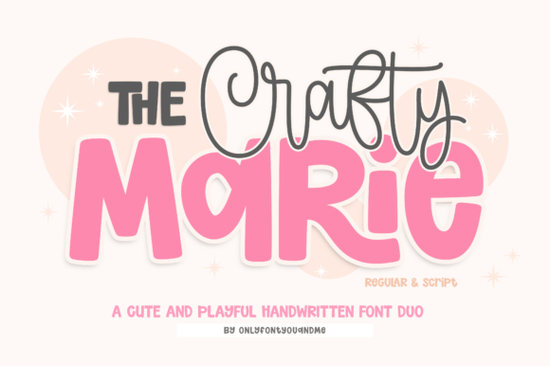
If you've ever spent too long trying to find two fonts that actually look good together, The Crafty Marie Font solves that problem immediately. It's a font duo that pairs a bold, rounded display sans with a smooth, whimsical handwritten script both built with the same playful energy so they work together without any guesswork.
Whether you're making classroom worksheets, birthday invitations, or nursery wall art, this duo gives you a cohesive, polished look from the start.
What Makes This Font Pairing Work So Well Together?
Most font bundles give you random styles that may or may not complement each other. The Crafty Marie Font is different because both styles share the same design DNA. That means:
- The Regular style handles headlines, titles, and primary messages
- The Script style works beautifully for accents, taglines, and personal touches
Does It Work Well With Cricut and SVG Software?
Yes and this is where it really shines for crafters. The clean, well-defined outlines make it a solid choice for:
- Cricut cutting projects no jagged edges or confusing paths
- SVG design work smooth curves that scale cleanly
- Print-on-demand products crisp at both small and large sizes
- DIY stickers and decals especially with a white offset for that popular sticker look
For the best results on cut projects, try using candy-inspired contrasting colors or add a thick white outline around the text. That layered sticker effect is one of the easiest ways to make your designs stand out in a crowded Etsy shop.
What Kinds of Projects Is It Best For?
Because of its friendly, approachable style, this font duo works across a surprisingly wide range of creative work:
- Classroom materials headers, flashcards, bulletin board displays
- Children's branding logos, business cards, social media graphics
- Birthday invitations especially for kids' parties
- Nursery art prints quotes, name art, milestone cards
- Teacher resources worksheets, labels, reward charts
- Small business packaging product tags, thank-you cards, stickers
How Do I Get the Most Out of This Font Duo?
Here are a few practical tips from working with font pairs like this one:
- Set your hierarchy first use Regular for main text, Script for secondary details
- Test your color choices candy palettes and high-contrast combinations tend to work best
- Add a white offset for sticker effects a 2–3px outline makes a noticeable difference
- Run a test cut the outlines are clean, but always verify on your specific material
- Save your favorite layouts build a few reusable templates to speed up future projects
Before You Start Your Next Project
Make sure both styles are installed and showing correctly in your design program. Create a simple test layout with both the Regular and Script styles side by side this helps you see how the hierarchy looks before committing to a full design. If you're building a larger font collection for craft projects, it's worth bookmarking the full product page so you can come back to it easily.
With its ready-made pairing, clean cut lines, and playful personality, this duo is a practical addition for anyone who regularly designs for families, kids, or educational settings.